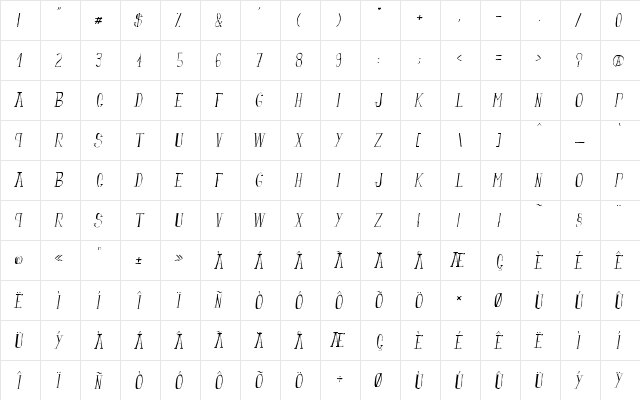
fanfarone-italique fanfarone-italique
| Foundry | Ewen Prigent |
| Designer | Ewen Prigent |
Design Context for fanfarone-italique Typeface
fanfarone-italique takes a measured approach to typography — its balanced proportions and neutral character make it a reliable workhorse for both digital and print work.